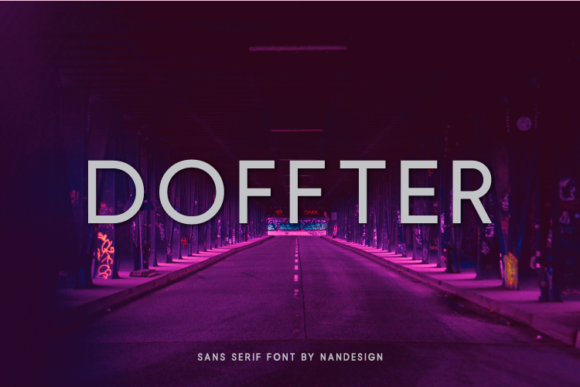
Typefaces serve as the cornerstone of visual communication, carrying the power to evoke emotions, set the tone, and establish a connection between the designer and the audience. Among the myriad of fonts available, Doffter stands out as a captivating sans serif creation, meticulously crafted by the talented Nan Design. Its essence lies in its simplicity and elegance, featuring clean lines, delicate strokes, and a minimalist aesthetic.
Doffter embodies the perfect balance between legibility and style, making it an ideal choice for resumes, presentations, and any project that demands a touch of sophistication. Its thin and smooth strokes exude a sense of modernity, lending an air of professionalism and timelessness to your designs. By incorporating Doffter into your creative arsenal, you unlock the ability to craft visually striking designs that resonate with your audience on a deeper level.
Whether you're a seasoned designer or just starting your journey into the world of typography, Doffter offers a versatile foundation for your creations. Its clean and understated nature allows it to seamlessly blend with a wide range of design styles, from minimalist to bold and expressive. With Doffter at your disposal, you'll elevate your designs beyond the ordinary, capturing attention and leaving a lasting impression.
This font is a perfect choice for those looking to make a statement with their resumes. Its clean and modern design will help you stand out from the crowd and get noticed by potential employers. With Doffter, you can create a resume that is both professional and visually appealing, giving you the best chance of landing your dream job.